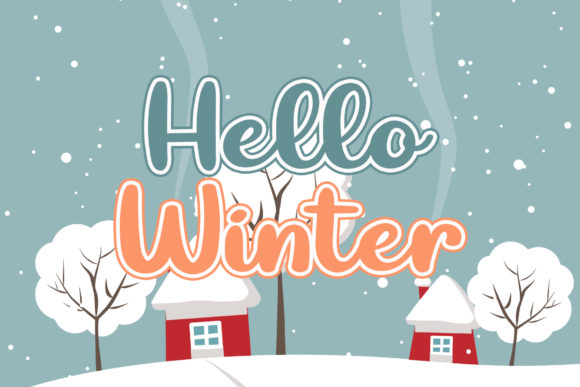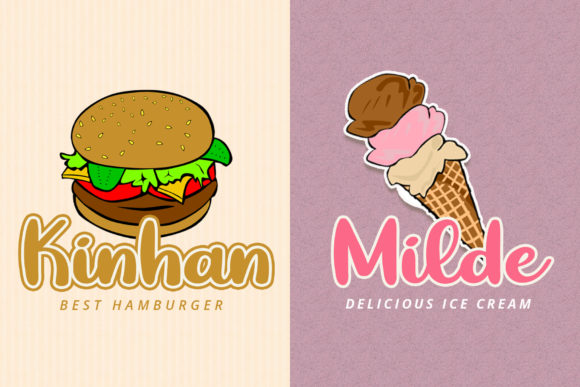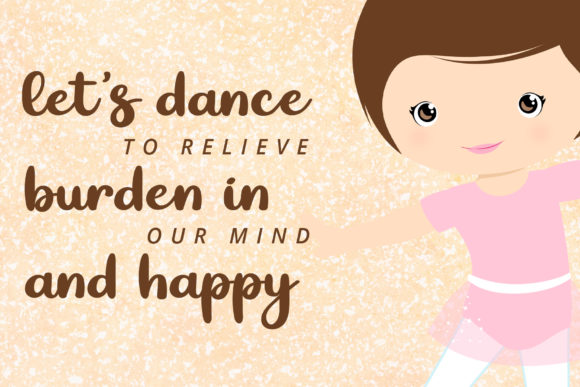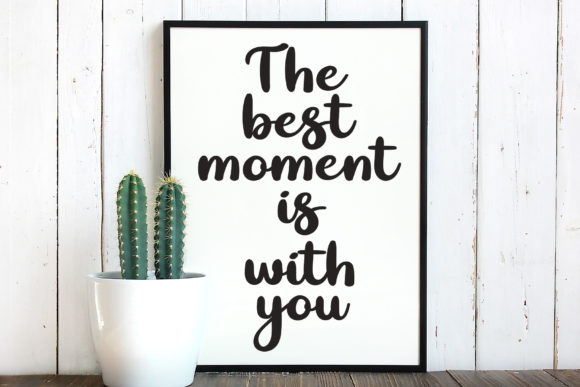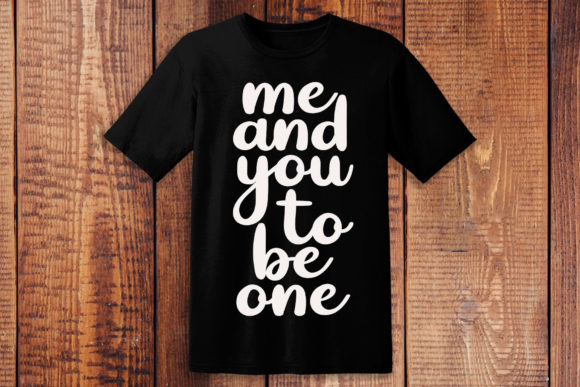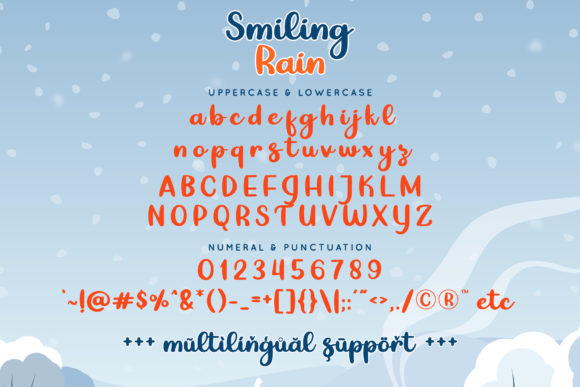
Introduction to Smiling Rain Font
As a designer, there’s nothing quite like the thrill of landing on the perfect font for a creative project. You’re brainstorming ideas, scrolling through fonts, and suddenly, it hits you – the perfect combination of style and personality. For me, that moment came when I stumbled upon the Smiling Rain Font. Its fresh and sweet handwritten style immediately caught my eye, and I knew I had to share it with the design community.
The Smiling Rain Font is more than just a pretty face; it’s a valuable design resource that can elevate your work to the next level. With its natural flow and versatility, it’s perfect for a wide range of applications, from logos and wedding invitations to headings and signage. And the best part? It’s available for free download, making it an accessible high-quality design asset for designers of all levels.
Key Features of Smiling Rain Font
- High-quality, unique font design with a transparent background, perfect for creative projects that require a touch of elegance.
- Features a clear and legible font size, with a resolution of 300 DPI, ideal for printing and digital use.
- Unique characteristics include a custom-designed letterform and a subtle, hand-drawn feel that adds a touch of personality to any design.
- Can be easily customized and edited using most font editing software, making it a versatile design resource.
Honest Review: Smiling Rain Font
As a designer, I’m always on the lookout for unique and high-quality design resources to elevate my creative projects. The Smiling Rain Font is one such find that has left me smiling (pun intended!). This beautiful, cursive script font is perfect for adding a touch of whimsy and elegance to your designs.
- ✨ High-quality design: The Smiling Rain Font is meticulously crafted, with smooth lines and perfect proportions.
- ✨ Versatile: Suitable for a wide range of creative projects, from wedding invitations to branding materials.
- ⚠️ Limited language support: Unfortunately, the Smiling Rain Font only supports Latin languages, which may be a limitation for designers working with non-Latin scripts.
- ⚠️ No transparent background: While the font is beautiful, it’s not suitable for designs that require a transparent background.
Overall, the Smiling Rain Font is a great addition to any designer’s toolkit. Its high quality and versatility make it a must-have for any creative project. Just be aware of its limitations, and you’ll be well on your way to creating stunning designs with this lovely font.
Smiling Rain Font
The Smiling Rain Font is a free, high-quality design resource ideal for creative projects. With its transparent background, it’s perfect for adding a touch of elegance to your designs. To get the most out of this font, follow these steps.
The Smiling Rain Font is perfect for:
- Baby shower invitations and decorations
- Graduation announcements and party invitations